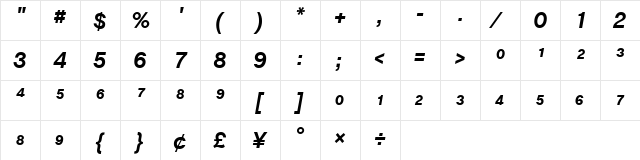
ChaletBookTTFrac Bold Italic
| Foundry | House Industries/Brand Design Co. Inc, |
| Designer | House Industries |
Design Context for ChaletBookTTFrac Typeface
ChaletBookTTFrac is a composed and adaptable typeface that performs quietly and consistently across a wide range of design contexts. Its italic angle brings a sense of urgency and motion to the letterforms. Its bold stroke weight gives it real presence on the page.
Pro Tip: Use ChaletBookTTFrac for emphasis, pull quotes, and subheadings where its slanted energy can add rhythm to the layout.